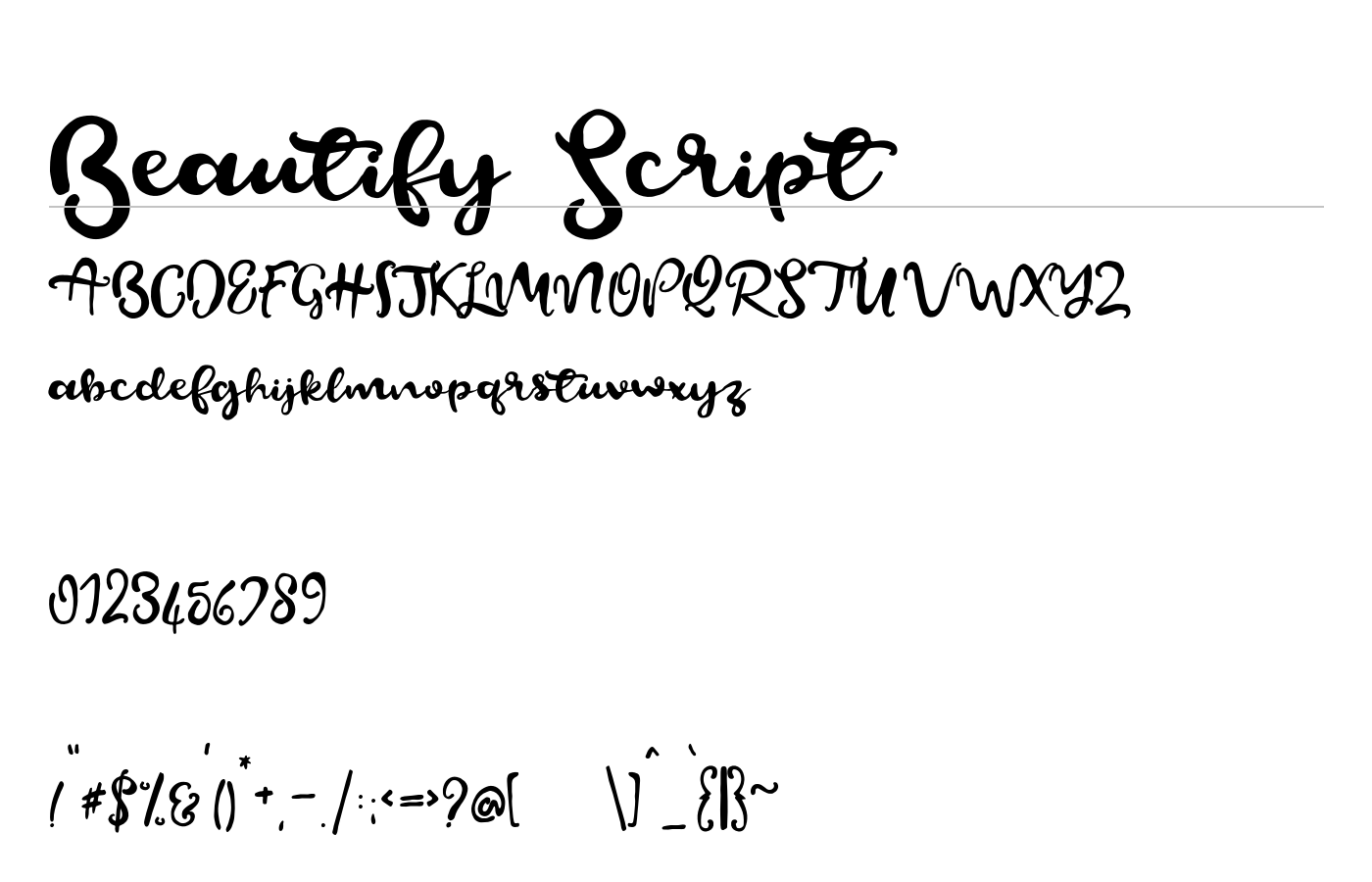
Beautify Script is a playful and elegant handwritten script font featuring smooth, rounded strokes and charming loops that give it a friendly yet stylish personality. Its moderate weight and carefully balanced letterforms make it perfect for creative branding, invitations, and social media graphics where a warm, approachable feel is desired. This font shines in logos and headlines that seek to convey creativity and personal touch with a modern twist.
Beautify Script Font
About Beautify Script Font